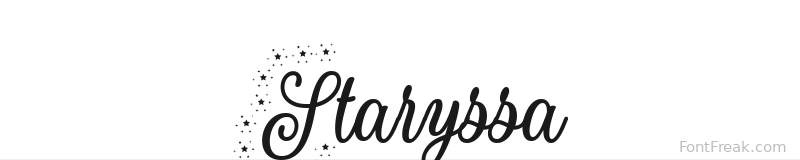
Staryssa
About Staryssa
The Staryssa font by Misti Hammers is a captivating script typeface that embodies a whimsical and elegant aesthetic. This decorative font features fluid, cursive strokes that create a sense of movement and charm. With its moderate stroke weight and subtle contrast, Staryssa maintains legibility while exuding a playful character. The well-balanced spacing between the letters enhances readability, making it suitable for various applications.
Staryssa is perfect for a range of creative uses. Its enchanting style makes it an excellent choice for wedding invitations, where it can add a touch of romance and sophistication. Additionally, it shines in the realm of greeting cards, creating heartfelt messages with a personal flair. For restaurant menus, Staryssa can elevate the dining experience, giving a sense of warmth and intimacy. It also lends itself beautifully to social media graphics, allowing content creators to engage their audience with visually appealing posts.
The target audience for Staryssa includes graphic designers, small business owners, and content creators seeking to enhance their projects with a unique font. This typeface is especially appealing for those who want to infuse their designs with personality and charm, making it an ideal choice for various branding and marketing materials.
What sets Staryssa apart is its ability to combine elegance with a playful spirit, making it versatile enough to suit both formal and casual contexts. Its distinctively flowing lines and charming character offer an inviting appeal that is hard to resist. For anyone looking to add a touch of whimsy to their design projects, the Staryssa font free download is an opportunity not to be missed.